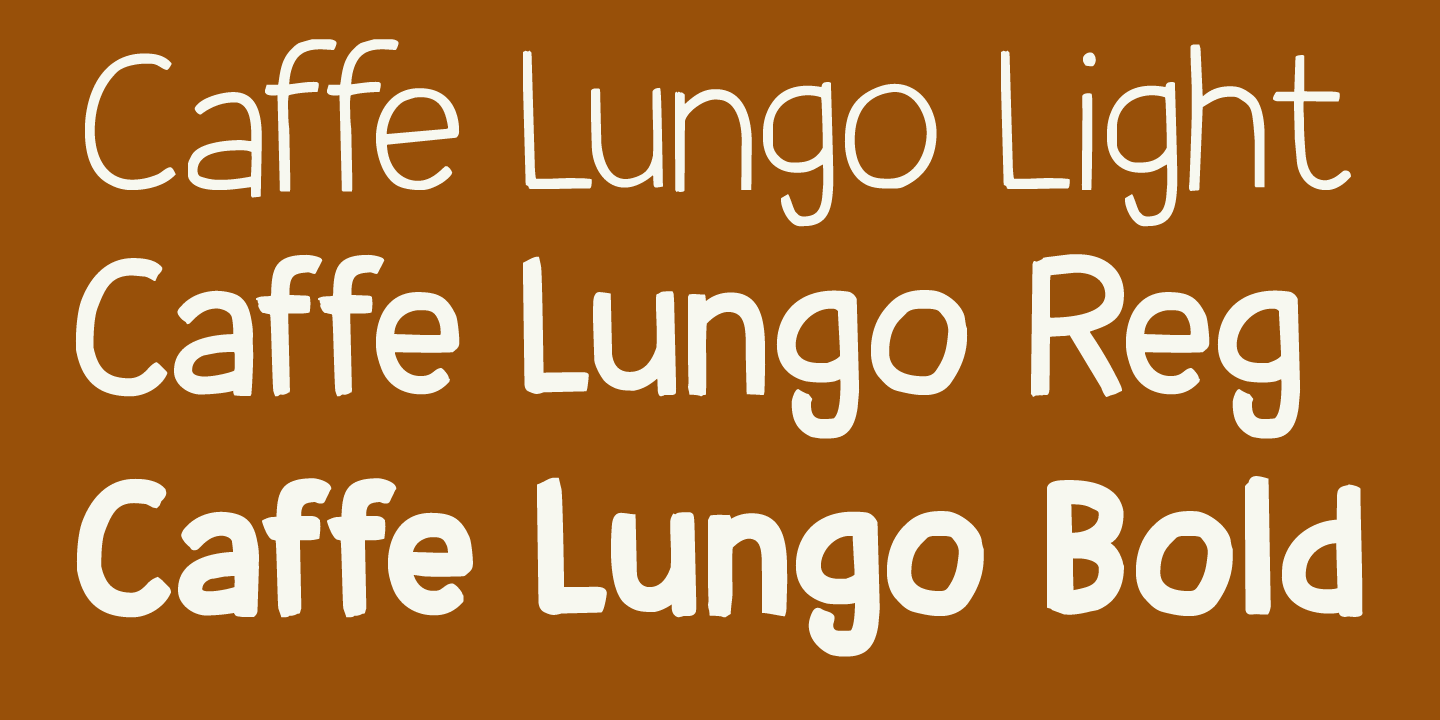
Elevate your design projects with Caffe Lungo Font Free Download, an exceptional typeface that combines elegance with contemporary appeal. This remarkable font brings sophisticated charm to any creative endeavor, making it the perfect choice for designers seeking distinctive typography solutions.
Caffe Lungo Font features beautifully crafted letterforms that balance artistic flair with practical readability. The font's unique character makes it ideal for branding projects, packaging design, restaurant menus, coffee shop signage, and lifestyle marketing materials. Its warm, inviting aesthetic creates an instant connection with audiences while maintaining professional standards.
This versatile typeface excels in both headline and body text applications, offering excellent legibility across various sizes and mediums. Whether you're designing for print publications, digital platforms, or outdoor advertising, Caffe Lungo Font delivers consistent quality and visual impact. The carefully designed spacing and proportions ensure optimal reading experience in every context.
Creative professionals worldwide appreciate the Caffe Lungo Font Free Download for its distinctive personality and adaptability. The font works exceptionally well for hospitality brands, artisan businesses, luxury products, and creative agencies looking to establish memorable visual identities. Its sophisticated appearance adds instant credibility and style to any project.
The complete Caffe Lungo Font package includes multiple weights and styles, providing designers with comprehensive options for creating cohesive brand systems. Each character demonstrates meticulous attention to detail, ensuring consistent quality across all applications and platforms.
Perfect for graphic designers, brand strategists, and marketing professionals, this font combines artistic expression with commercial viability. Caffe Lungo Font supports extensive character sets, making it suitable for international campaigns and diverse content requirements.